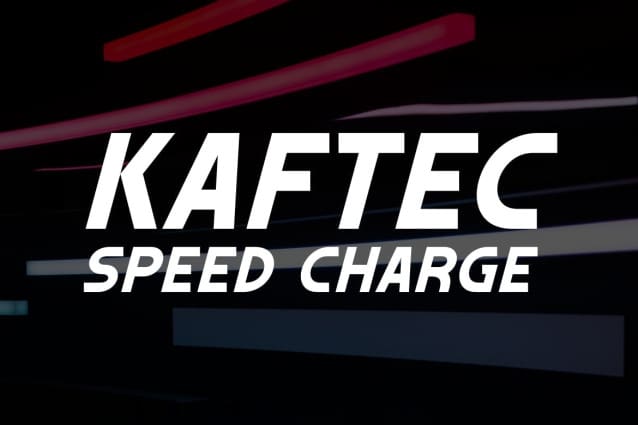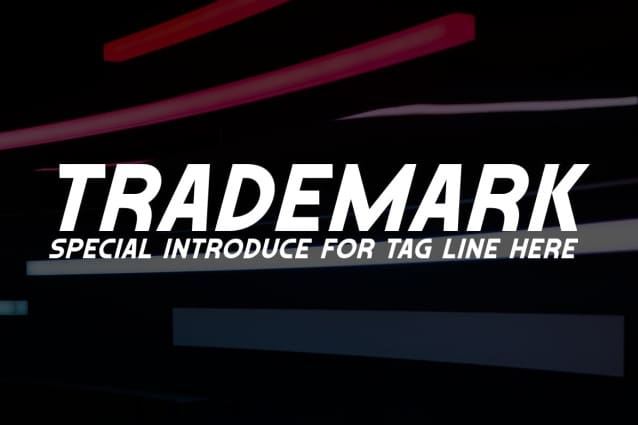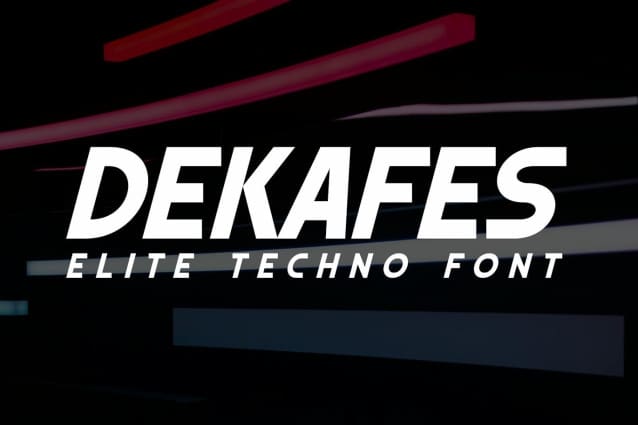
Dekafes Font
Dekafes Font, special techno font with a sleeker appearance. intended to be more agile in the desired writing formula. This font is perfect for speed. such as goods delivery services, fast delivery services, chargers, batteries and many more.
Prove the speed of your product with this font.